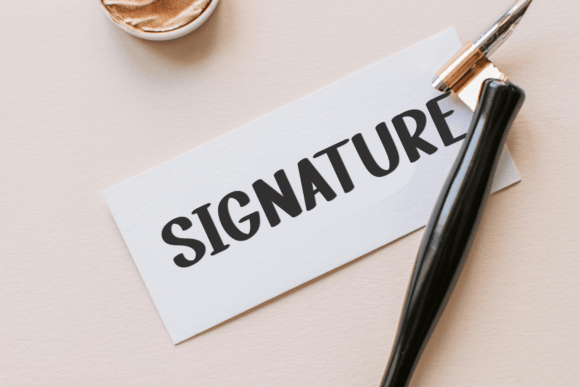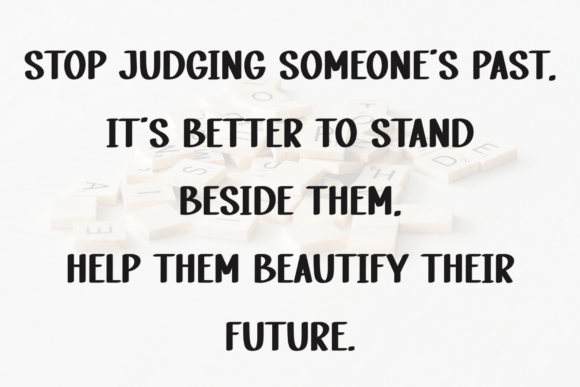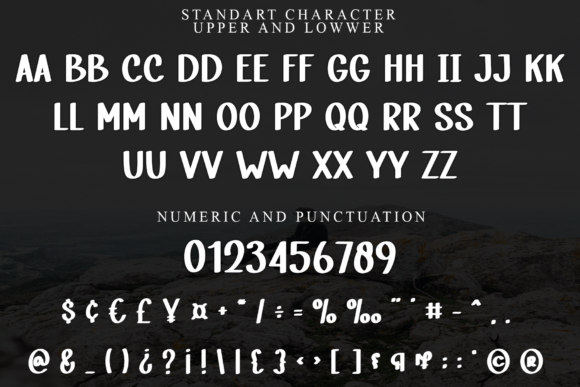
Introduction to Handcraft Awesome Font
Handcraft Awesome is a beautiful and eye-catching font designed with a soft, unique touch.
Its distinctive strokes give it a special character, making it meaningful and versatile for future use With various characters, it’s perfect for design projects, crafts, and other creative works.
Key Features of Handcraft Awesome Font
Why Choose Handcraft Awesome Font?
Handcraft Awesome Font offers exceptional quality and versatility, making it a valuable addition to your design toolkit. Whether you’re creating for personal projects or commercial use, Handcraft Awesome Font delivers professional results.